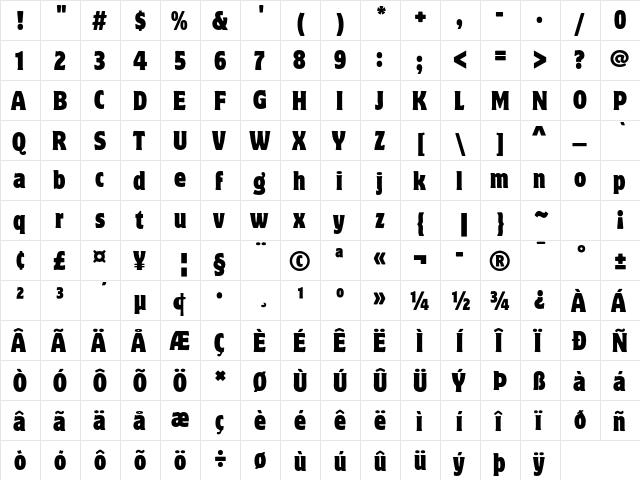
Motter Corpus ITC Std Condensed
Condensed ·  Othmar Motter ·
DesignerOthmar Motter
Design Context for Motter Corpus ITC Std Typeface
Motter Corpus ITC Std takes a measured approach to typography — its balanced proportions and neutral character make it a reliable workhorse for both digital and print work. The condensed width makes it efficient for tight spaces without sacrificing legibility.